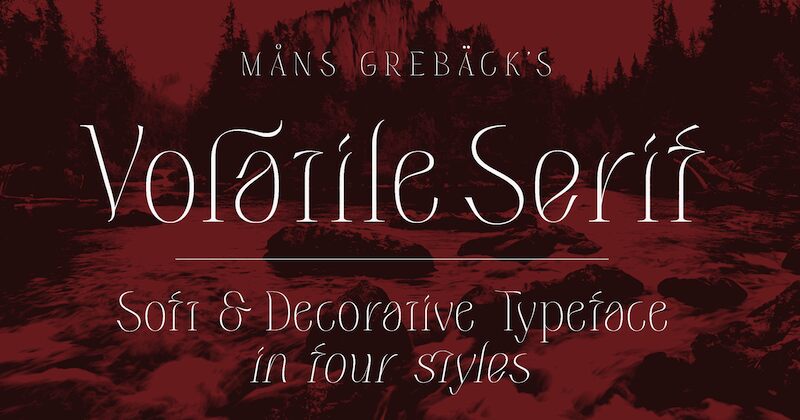
With its extra-light weight and semi-condensed width, Volatile Serif is the perfect font for projects that require a touch of elegance and sophistication.
Its decorative vintage serif style adds a nostalgic charm to any design, making it suitable for invitations, wedding stationery, and high-end branding. The delicate swirls and liquified forms of this display typeface create a sense of movement and grace, making it ideal for fashion editorials, beauty products packaging, and art-inspired layouts. Whether used in print or digital media, Volatile Serif will bring an aura of softness and romance to your designs.